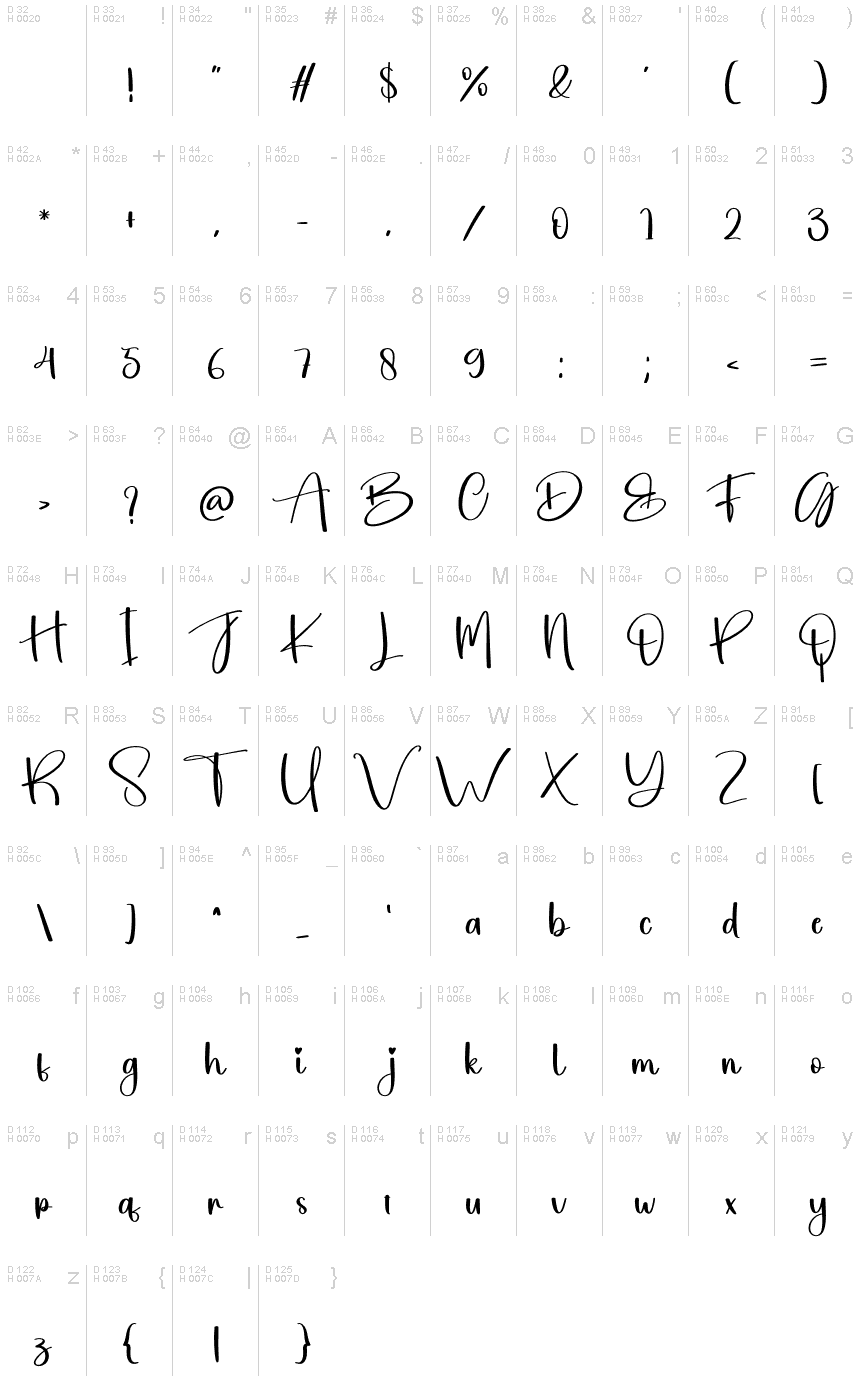
Arabic
Arabic, a captivating calligraphy font designed by Scratchones, combines elegance with a touch of romance. Its semi-light weight lends a delicate yet enchanting quality to any design project.
Perfect for wedding invitations, love letters, or greeting cards, Arabic adds an air of sophistication and grace. With its flowing strokes and intricate details, this font will transport your audience to the realm of timeless beauty and passion. Let Arabic be the muse for your next creative endeavor and captivate hearts with its enchanting charm.